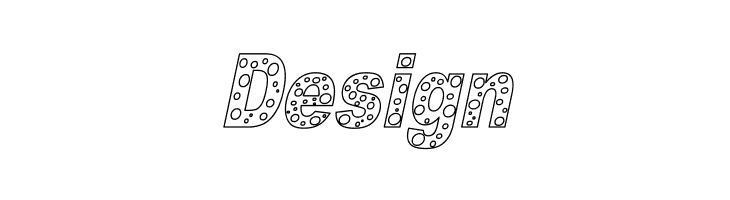
Canavarlar Regular Font
- Font: Canavarlar Regular
( Fonts by AEnigma - www.aenigmafonts.com )
A bold, rounded outline font with a modern and playful style.